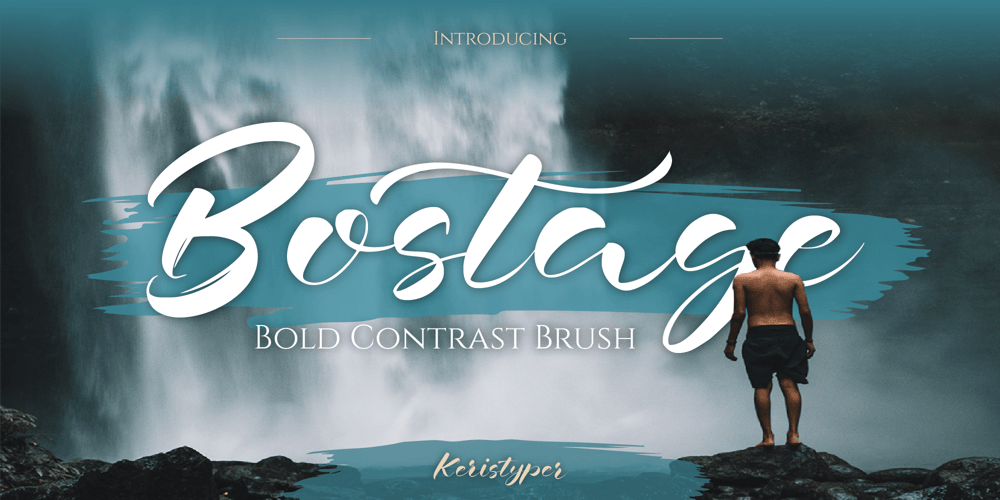
Bostage
Bostage font
Bostage Font Family was designed by Tezar Tantular and published by Keristyper Studio. Bostage contains 1 styles and family package options. Bostega is a handwritten script display font with bold contrast strokes. This font is good for logo design, Social media, Movie Titles, Books Titles, short text even long text letters, and good for your secondary text font with script, sans, or serif.Featured: Standard Uppercase & Lowercase Numeral & Punctuation Multilingual : ä ö ü Ä Ö Ü ß ¿ ¡ Alternate & Ligature PUA encoded We recommend programs that support the OpenType feature and the Glyphs panel such as Adobe applications or Corel Draw. so you can use all the variations of the glyphs.Hope you enjoy our fonts!